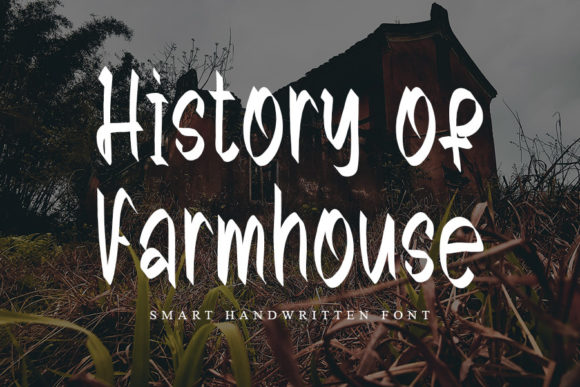
Journey back in time to the captivating era of rustic charm with History of Farmhouse, a breathtaking handwritten font that embodies the essence of simplicity, elegance, and versatility. Crafted with meticulous attention to detail, this script font exudes a timeless beauty that will elevate your designs to new heights.
Immerse yourself in the nostalgic allure of History of Farmhouse, where each letter dances across the page with a graceful fluidity. Its well-rounded curves and clean lines create a harmonious balance that is both eye-catching and inviting. Whether you're a seasoned designer or just starting out, this font is your gateway to creating designs that resonate with warmth and authenticity.
Unleash your creativity and explore the endless possibilities that History of Farmhouse holds. Its flexible nature makes it the perfect choice for a wide range of projects, from elegant wedding invitations to playful Halloween signs. Let your imagination run wild as you craft designs that capture the essence of bygone eras, adding a touch of timeless charm to every word.
With History of Farmhouse, you'll discover a font that effortlessly blends the old and the new, the classic and the contemporary. Its vintage-inspired aesthetic is infused with a modern sensibility, resulting in a font that feels both familiar and fresh. Embrace the beauty of nostalgia while embracing the excitement of innovation.